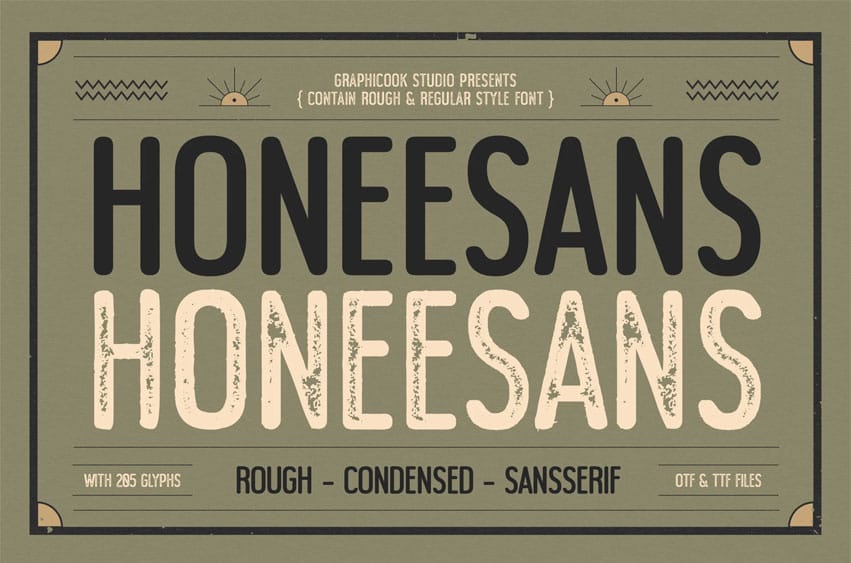
Honeesans Font is a condensed sans-serif typeface featuring both regular and rough styles, offering flexibility for everything from sleek modern looks to textured retro aesthetics. Its clean yet distinctive letterforms make it ideal for branding, packaging, editorial work, and vintage-inspired projects.
It is perfect for headlines, logotypes, magazines, packaging, quotes, movies, games, cover albums, book covers, and flyers. It’s a perfect solution for creating eye-catching designs that stand out in any context.